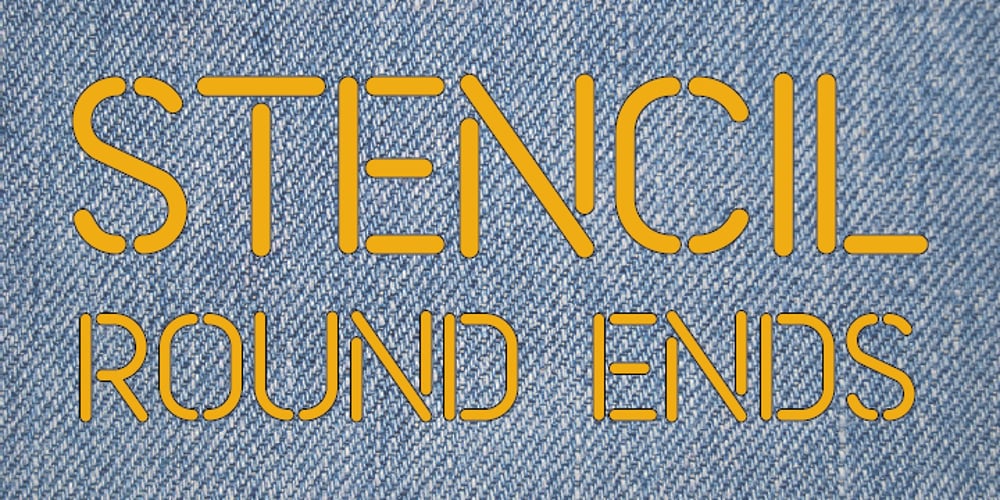
Stencil Round Ends Font Family was designed by Justin Daniels and published by Creative Juncture. Stencil Round Ends contains 1 styles and family package options. Stencil Round Ends, is just that, a stencil typeface with rounded terminations to each line rather than the squared terminations found in your typical stencil font. This design was developed while designing a typeface for engraving. The end mill tools used to engrave a font are round, thus the lines will all end with a rounded edge. While designing the engraving font I also designed this font to make sure that the single line version will have the desired aesthetic. Unlike many stencil fonts that have a limited range of glyphs I made this to contain the majority of letters, accents, ligatures, and mathematic symbols commonly used in most latin based languages.